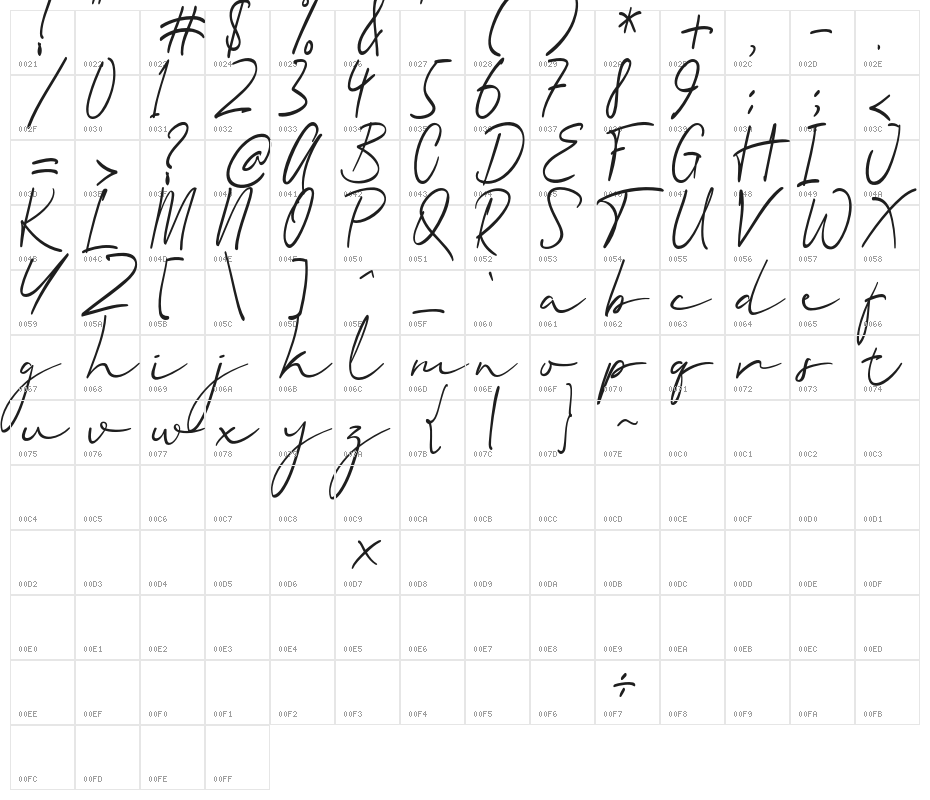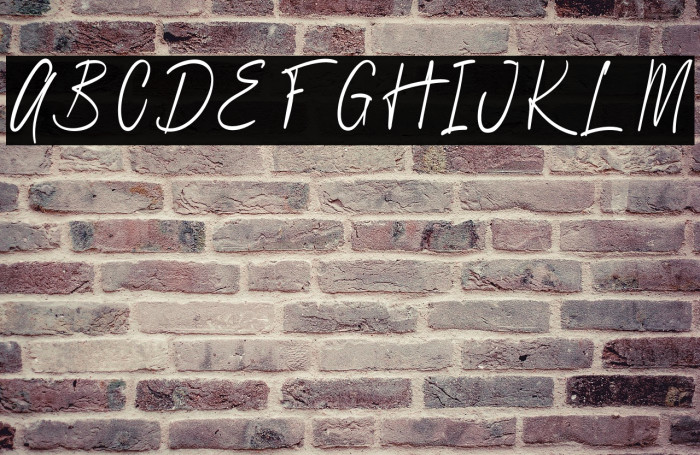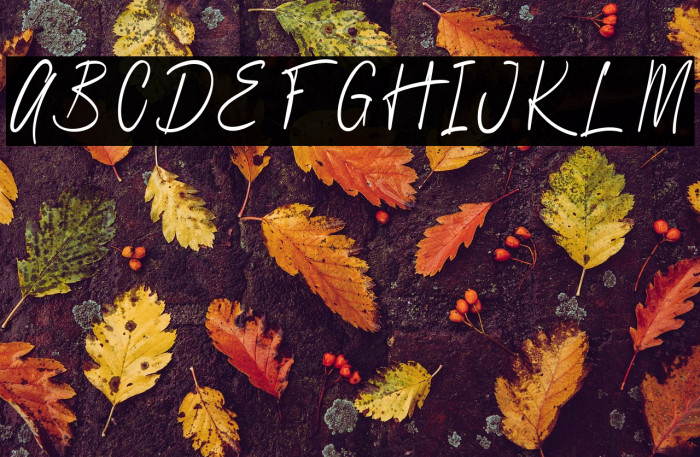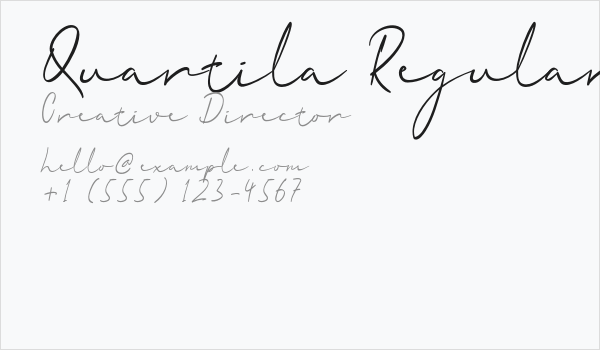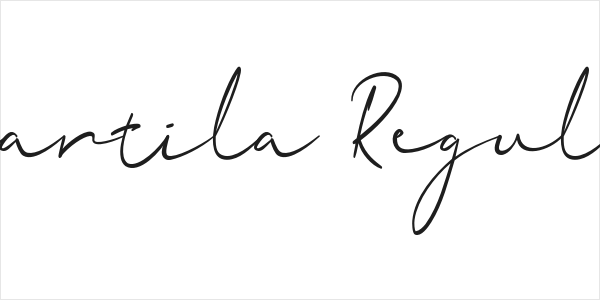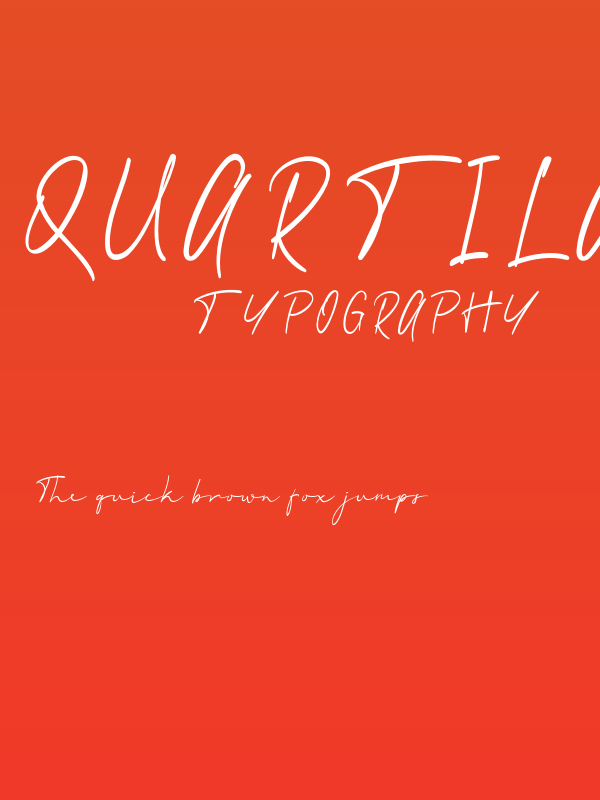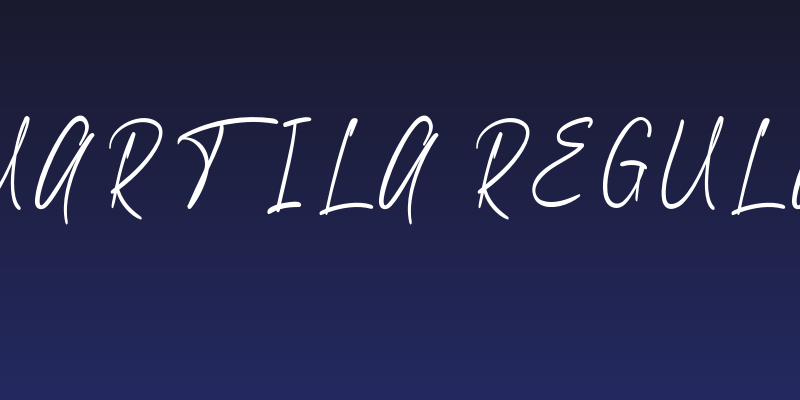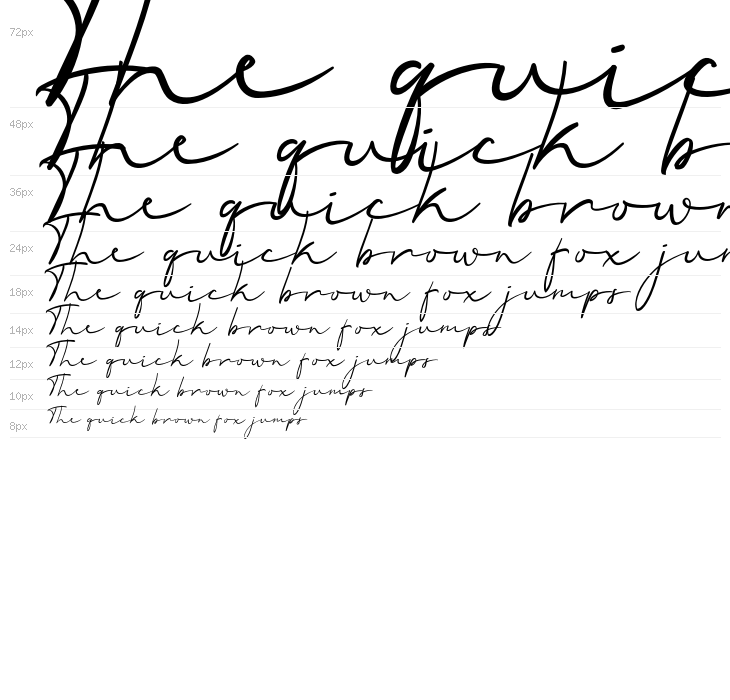
Quartila Regular Font
Quartila Regular Description
This font features a fluid and elegant script style, characterized by its smooth, flowing lines and a handwritten appearance. The uppercase letters are slightly more structured, maintaining a consistent height, while the lowercase letters exhibit a more casual and connected style, enhancing the cursive feel. The numerals are clear and legible, maintaining the script's overall aesthetic. Special characters are seamlessly integrated, matching the font's graceful and artistic nature. The strokes vary in thickness, providing a dynamic and lively contrast that adds to its charm.